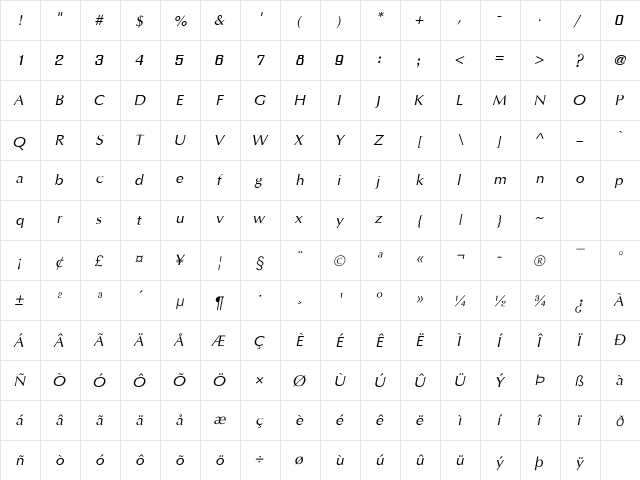
IrisUPC Italic
Design Context for IrisUPC Typeface
IrisUPC takes a measured approach to typography — its balanced proportions and neutral character make it a reliable workhorse for both digital and print work. The slanted form adds forward momentum and visual energy.
Pro Tip: Use IrisUPC for emphasis, pull quotes, and subheadings where its slanted energy can add rhythm to the layout.